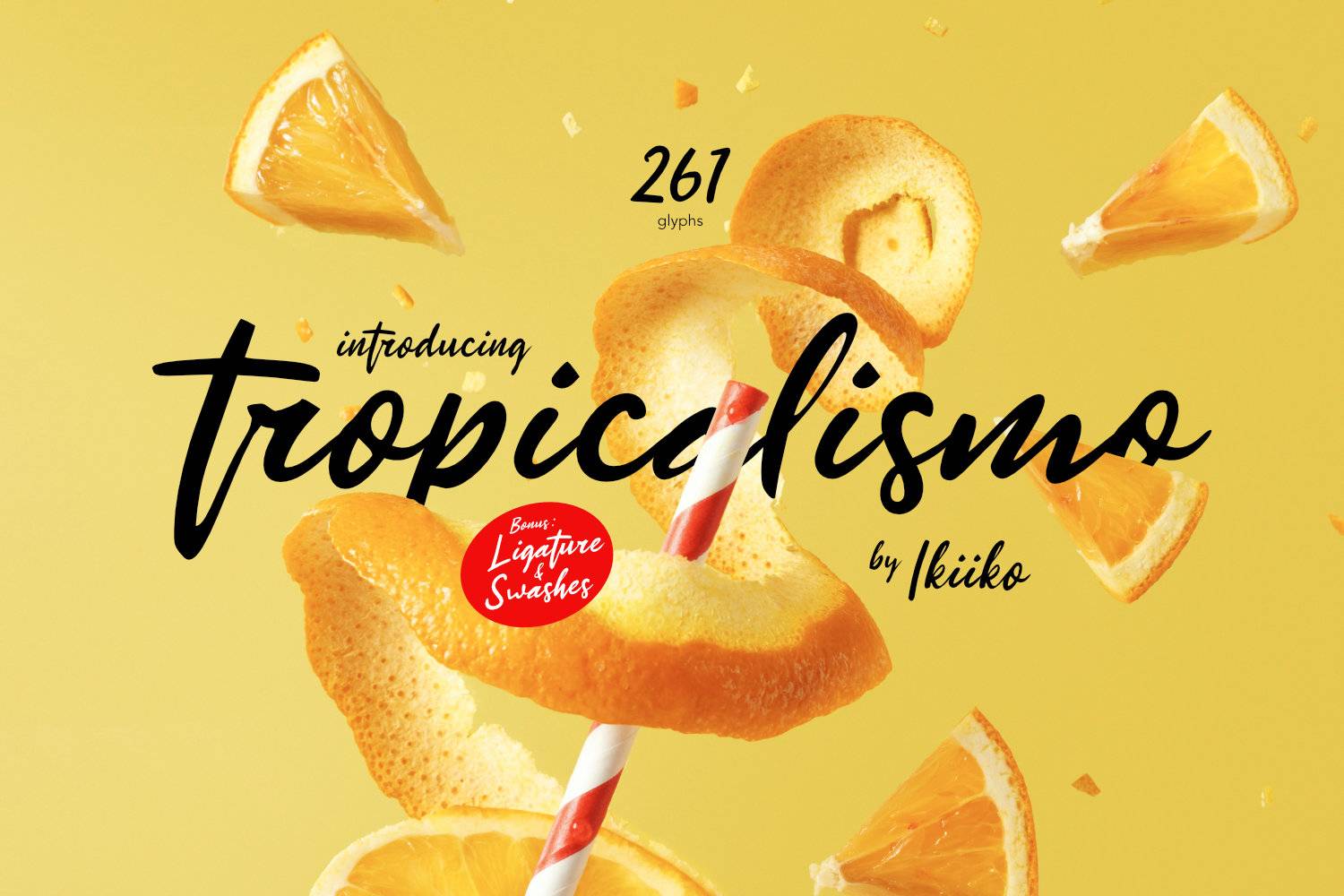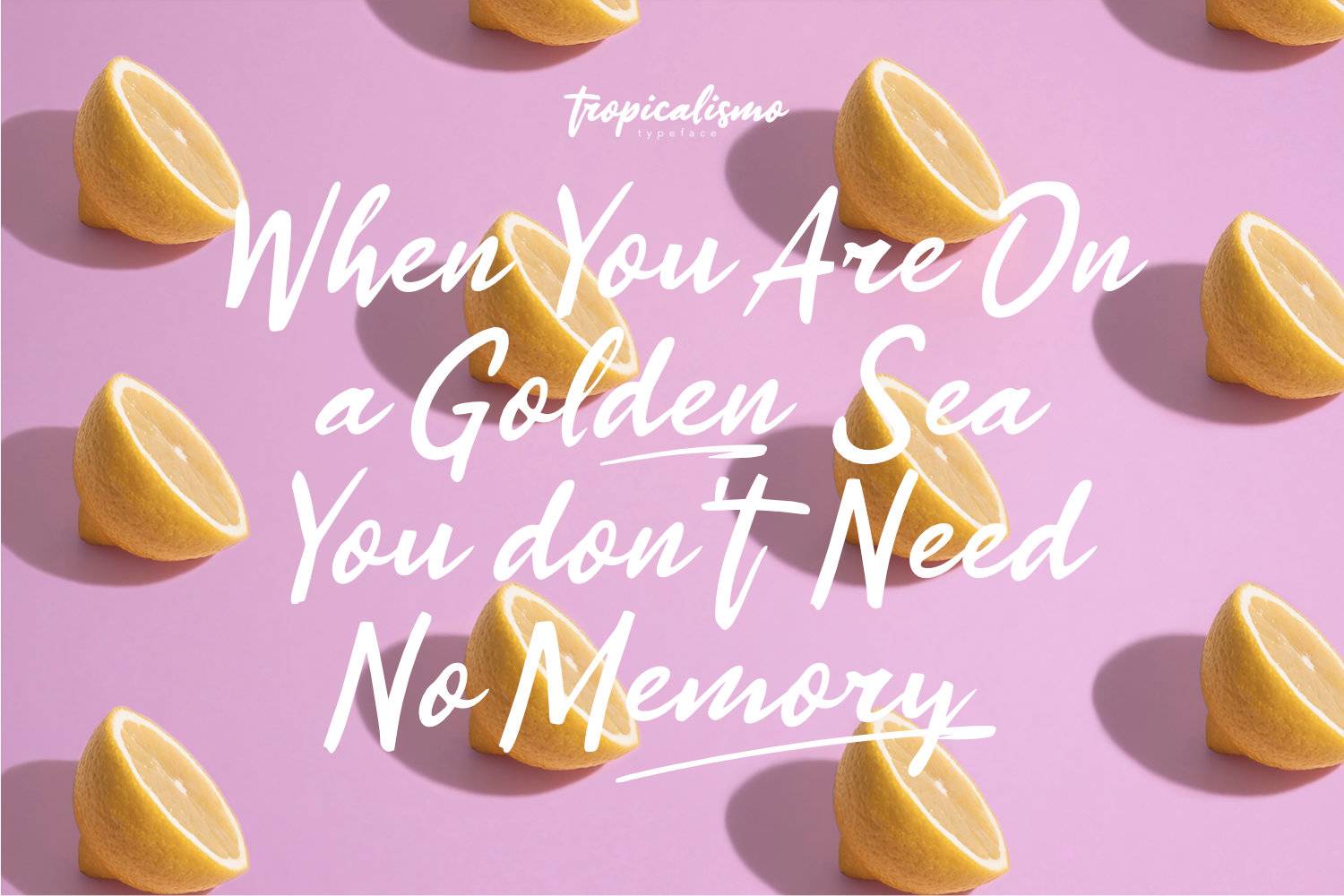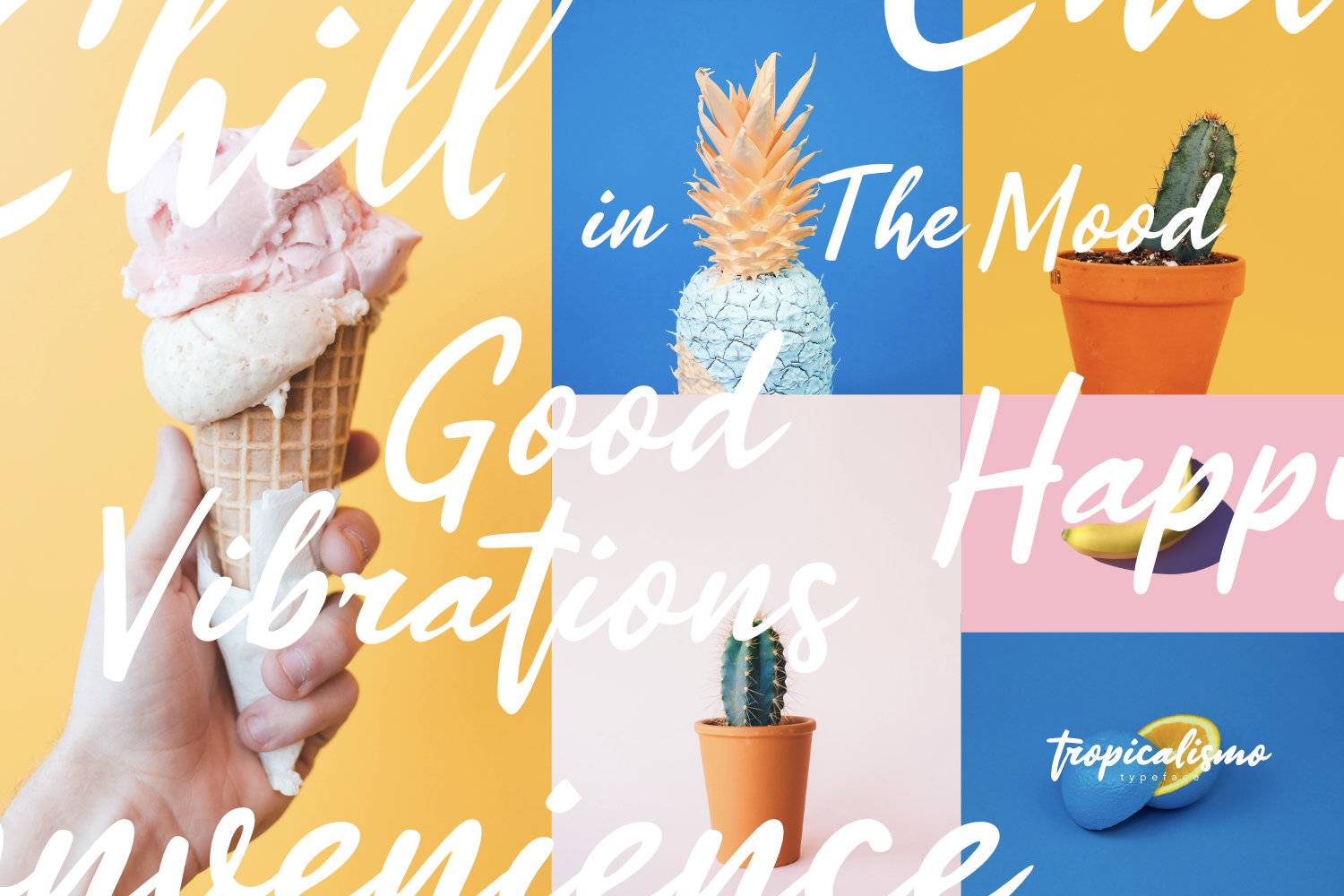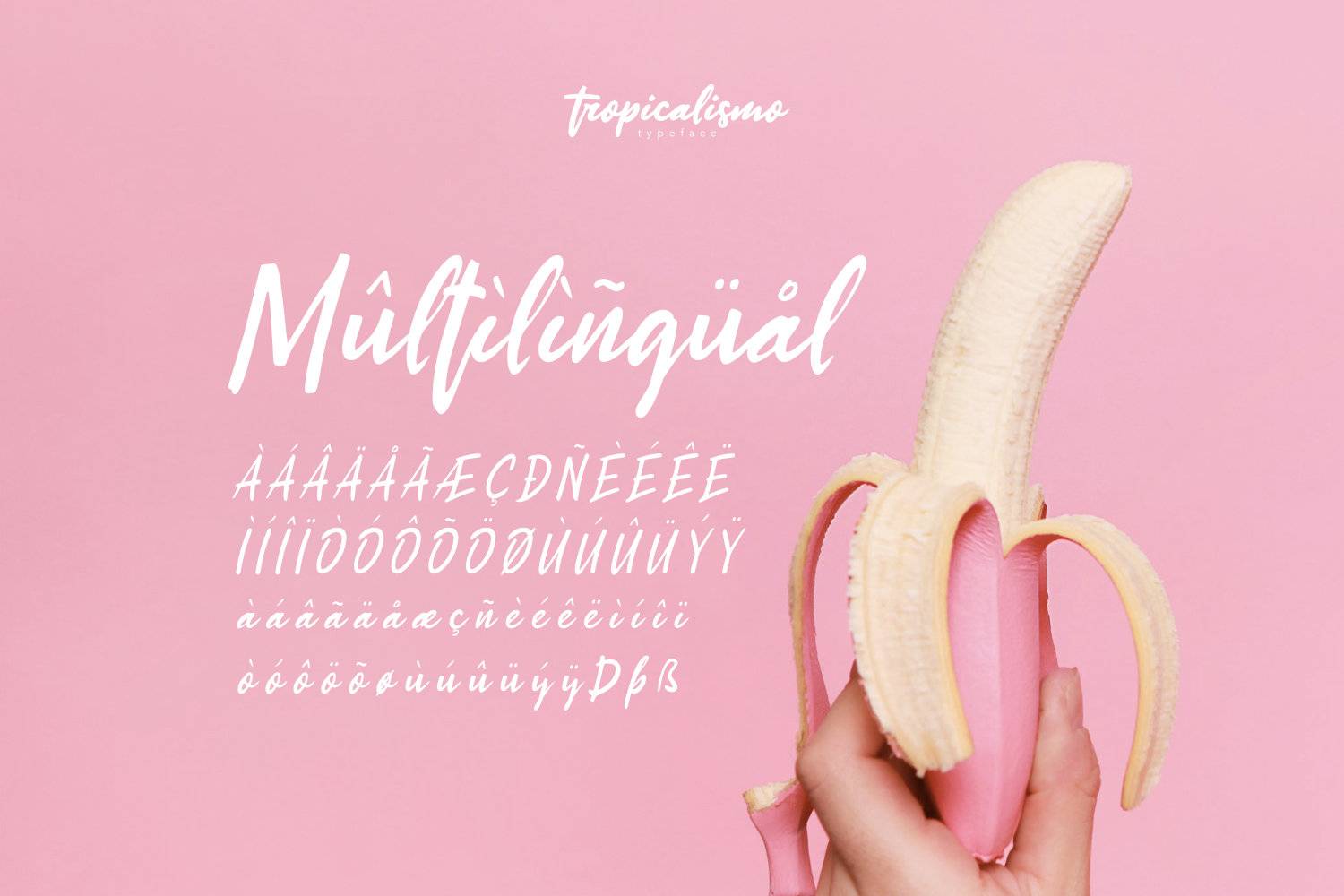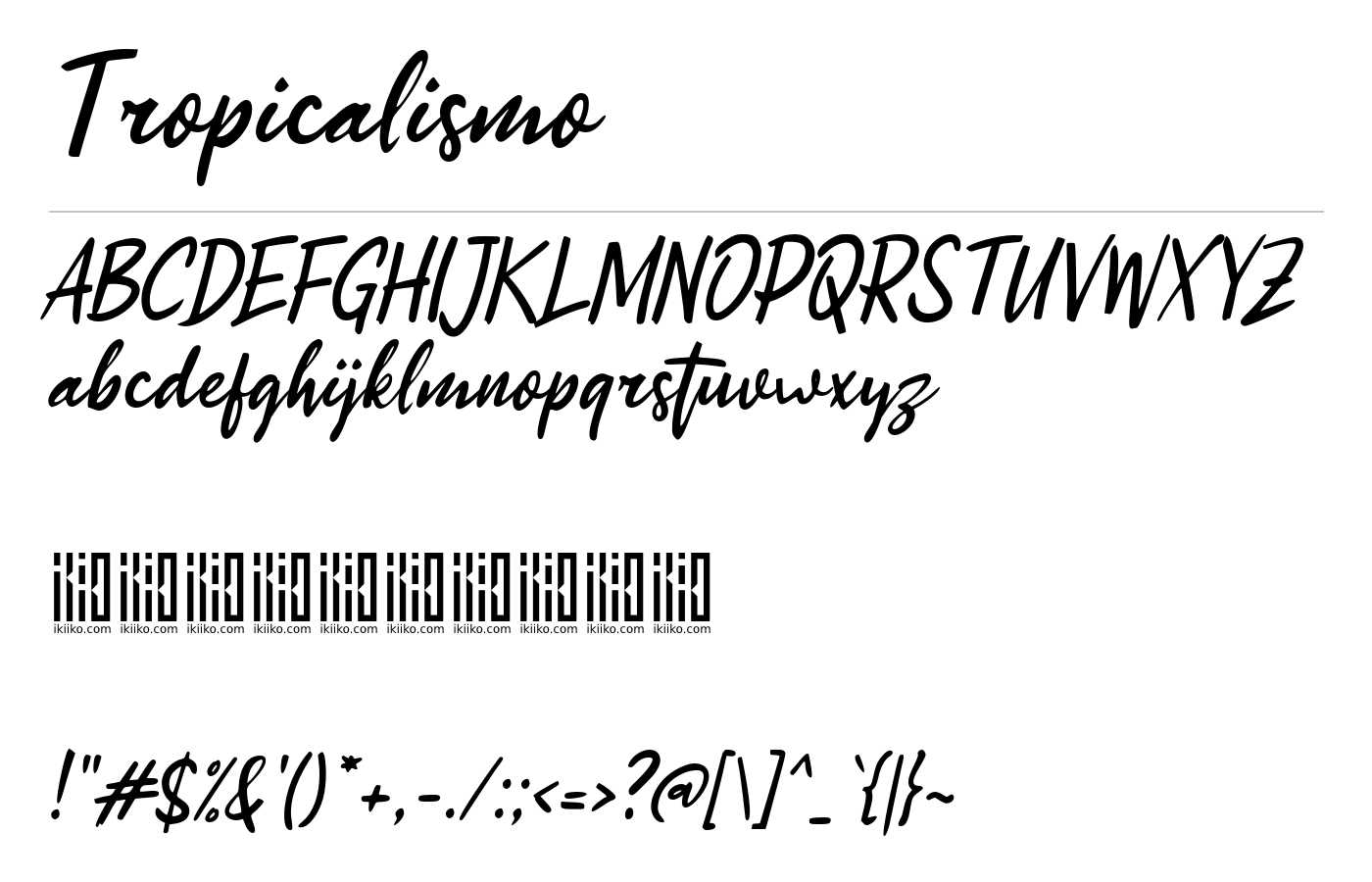
Tropicalismo is a lively and informal script font with a hand-drawn feel, featuring smooth, flowing strokes and moderate contrast that give it a casual yet elegant charm. Its tall, slightly condensed letterforms and natural, cursive style make it perfect for creative projects, branding, and headlines where a warm, approachable personality is desired. This font works well for fashion, lifestyle, and artistic designs that want to convey energy and friendliness while maintaining readability.
Tropicalismo Font
About Tropicalismo Font
| Font family | Tropicalismo Font |
| Designer | Andhika Pradana, Wahyu Eka Prasetya |